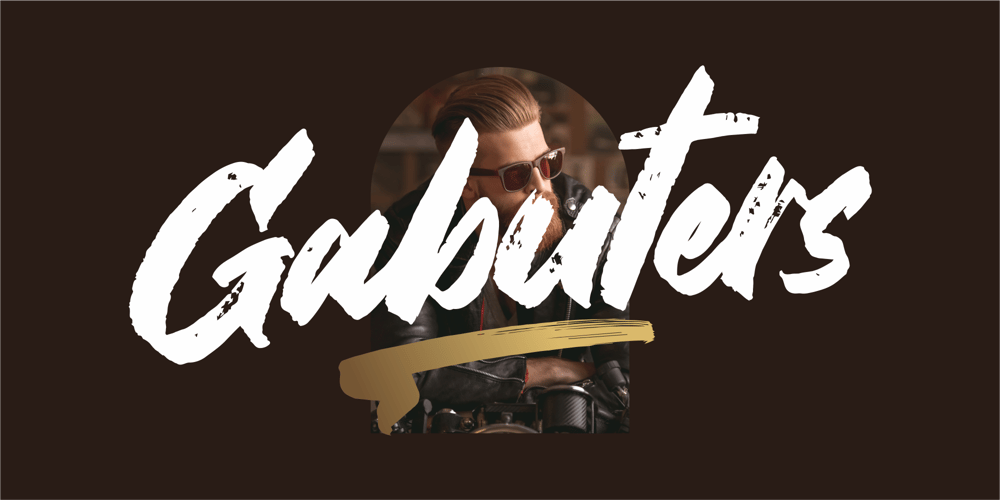
Gabuters
Gabuters font
Gabuters Font Family was designed by Heru Utama Putra and published by Letterena Studios. Gabuters contains 2 styles and family package options. Gabuters is a cool, brushed display font. No matter the topic, this font will be an incredibly asset to your fonts’ library, as it has the potential to elevate any creation.Features: Multilingual Support Ligatures Swash PUA Encoded Numerals and Punctuation